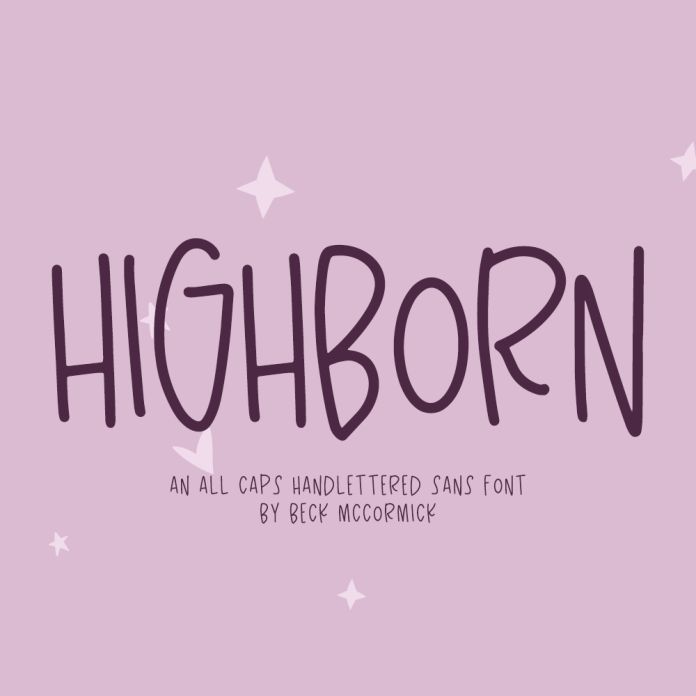
Say hello to Highborn, an all-caps sans font. Highborn is cute and quirky.
Highborn is best for:
- feminine, crafty projects with your Cricut or Silhouette machine, or your SVG design business
- full upper + lowercase characters - caps characters are programmed into lowercase spots for your convenience!